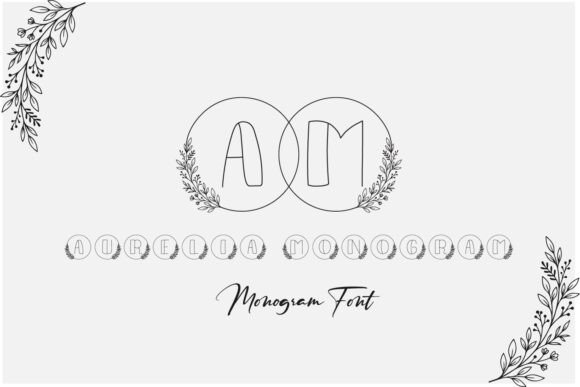
The Elegance of Aurelia Monogram Font: A Designer’s Delight
I’ll never forget the time I was working on a wedding invitation project, and my client asked for a custom monogram that exuded elegance and sophistication. I scoured the internet for the perfect font, but nothing seemed quite right. That was until I stumbled upon Aurelia Monogram Font. ✨ This beautiful botanical font has been a game-changer for my design projects, and I’m excited to share its features and versatility with you.
A Personal Review of Aurelia Monogram Font
- ✨ Elegant and refined design, perfect for luxury branding and wedding projects
- ✅ Extensive OpenType features, including glyphs and stylistic alternates
- 🌿 Beautiful leafy wreath accents and circular frames add a touch of whimsy
While Aurelia Monogram Font is an exceptional font, there are a few minor quirks to be aware of:
- ⚠️ Some users may find the font requires a bit of manual kerning for optimal results
- 🤔 Limited multilingual support, primarily designed for English and Western European languages
The Story Behind Aurelia Monogram Font
Aurelia Monogram Font was designed by a team of typographers who wanted to create a elegant, botanical font that captured the essence of luxury and sophistication. Inspired by traditional wreath-making techniques, the designers crafted a unique and versatile font that would appeal to designers, crafters, and creative hobbyists alike.
Q: What is Aurelia Monogram Font best suited for?
A: Aurelia Monogram Font is perfect for wedding monograms, luxury branding, invitations, Cricut projects, boutique logos, personalized initials, and feminine decorative designs.
Q: Does Aurelia Monogram Font support OpenType features?
A: Yes, Aurelia Monogram Font features extensive OpenType support, including glyphs, stylistic alternates, and more.